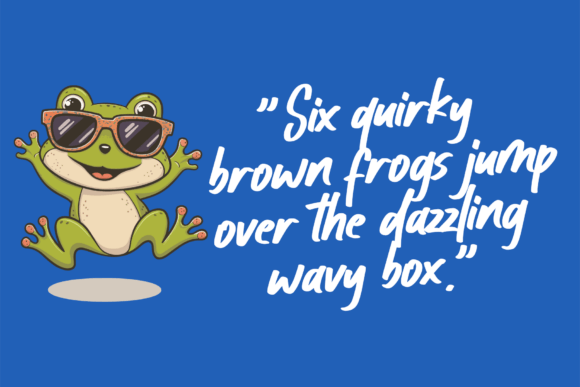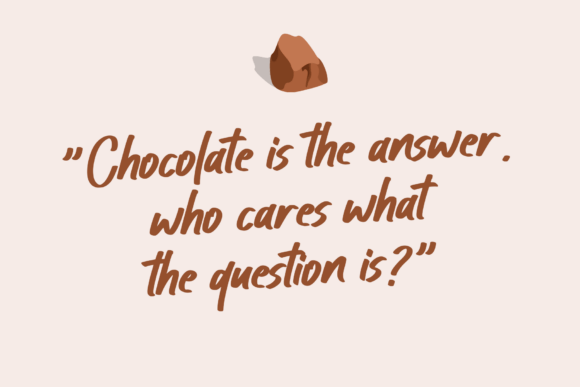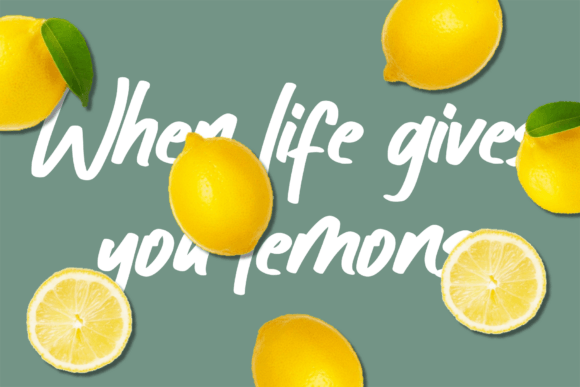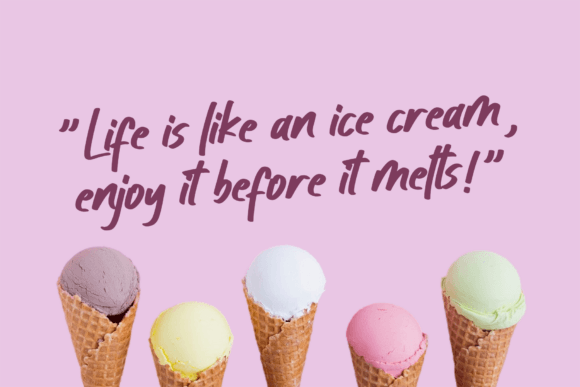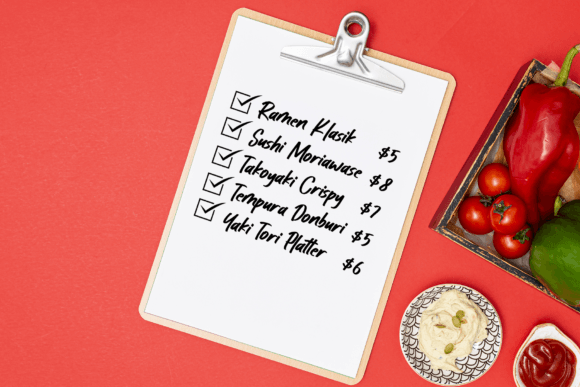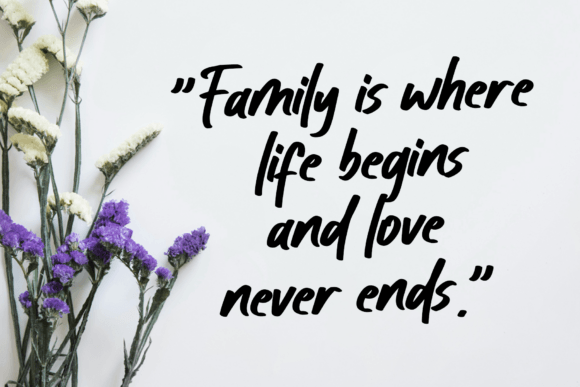
The Designer’s Delight: How Frolique Font Elevates Creative Projects
I still remember the design project that led me to discover Frolique Font. I was working on a branding campaign for a trendy boutique, and I needed a font that would capture the essence of their fun, yet sophisticated brand. After hours of scrolling through font libraries, I stumbled upon Frolique, and it was love at first sight! ✨ The smooth curves, casual strokes, and elegant feel instantly resonated with my design vision.
An Honest Review of Frolique Font
What I Love About Frolique
- ✅ Elegant yet playful: Frolique strikes the perfect balance between sophistication and friendliness, making it ideal for a wide range of design projects.
- ✨ Unique character: The font’s distinctive style ensures your designs stand out from the crowd.
- 🔍 Underline swashes: Frolique’s OpenType features allow for seamless, personalized lettering that adds a touch of luxury to any project.
- 📚 Versatile: Suitable for branding, packaging, invitations, social media posts, and more.
While Frolique is an exceptional font, there are a few things to keep in mind: 🤔
- ⚠️ Legibility at small sizes: Like many script fonts, Frolique may lose legibility at very small sizes. It’s best used at larger sizes or for headlines.
- ⚠️ Pairing with other fonts: Frolique’s unique style may require some experimentation to pair well with other fonts. Stick to simple, clean fonts for optimal results.
The Story Behind Frolique Font
Frolique was designed with the intention of creating a font that embodies both elegance and playfulness. The designer aimed to craft a script font that would be versatile enough for various design applications, from luxury branding to creative hobbies. Inspired by classic calligraphy and modern digital trends, Frolique brings a fresh perspective to the world of typography.
Q: What makes Frolique suitable for branding projects?
A: Frolique’s unique blend of elegance and friendliness makes it perfect for branding projects that require a sophisticated yet approachable feel.
Q: Does Frolique support multiple languages?
Q: How do I access Frolique’s underline swashes?